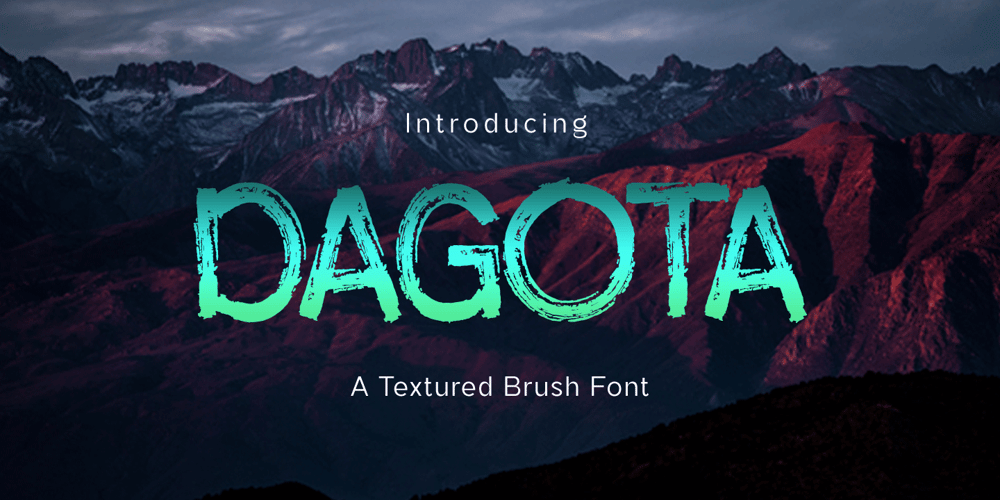
Dagota
Dagota font
Dagota Font Family was designed by Amri Mauludin and published by ArimaType. Dagota contains 1 styles and family package options. Dagota is a cool, brushed display font. No matter the topic, this font will be an incredible asset to your fonts’ library, as it has the potential to elevate any creation.